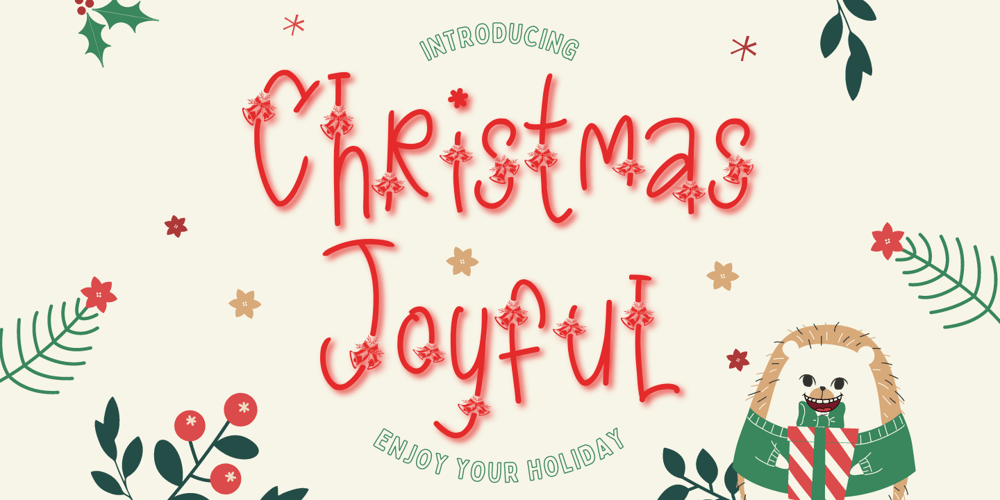
Chistmas Joyful Font Family was designed by Aditiyo Dwi Putranto and published by Creaditive Design. Chistmas Joyful contains 2 styles and family package options. Christmas Joyful is a cool and fun decorative font. No matter the topic, this font will be an incredible asset to your fonts’ library, as it has the potential to elevate any cristmas creation.